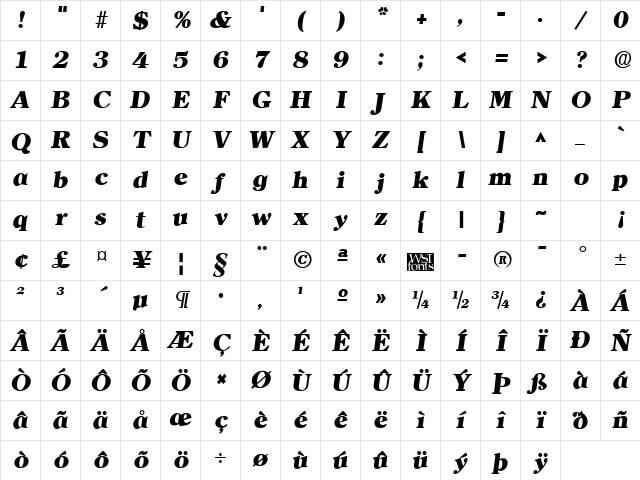
ClearlyRomanHeavy Italic
Design Context for ClearlyRomanHeavy
ClearlyRomanHeavy is a composed and adaptable typeface that performs quietly and consistently across a wide range of design contexts. The slanted form adds forward momentum and visual energy.